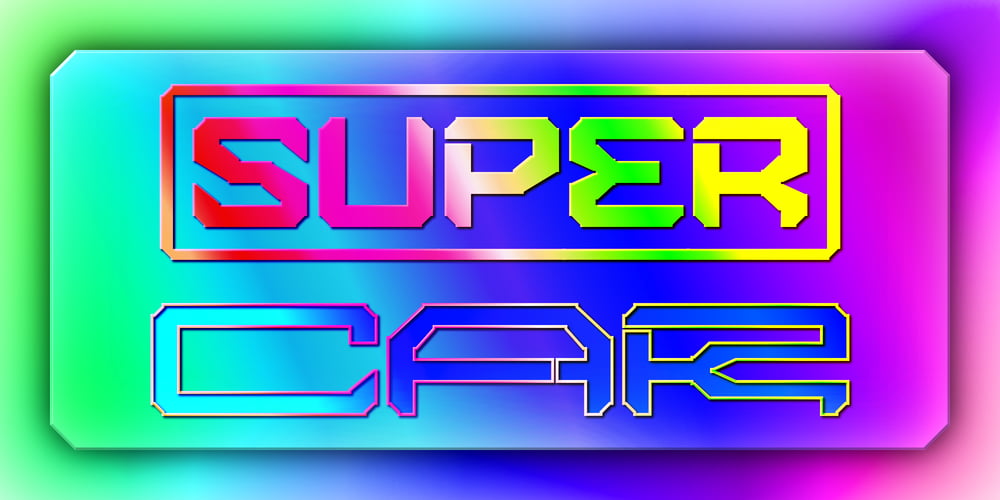
Super Car Variable
Super Car Variable font
Super Car Variable Font Family was designed by Tri Kuncoro and published by Greentrik6789. Super Car Variable contains 2 styles and family package options. super car font is now available in variable font, give freedom to your creativity with a touch of unique and futuristic style to your design with super car variable font.